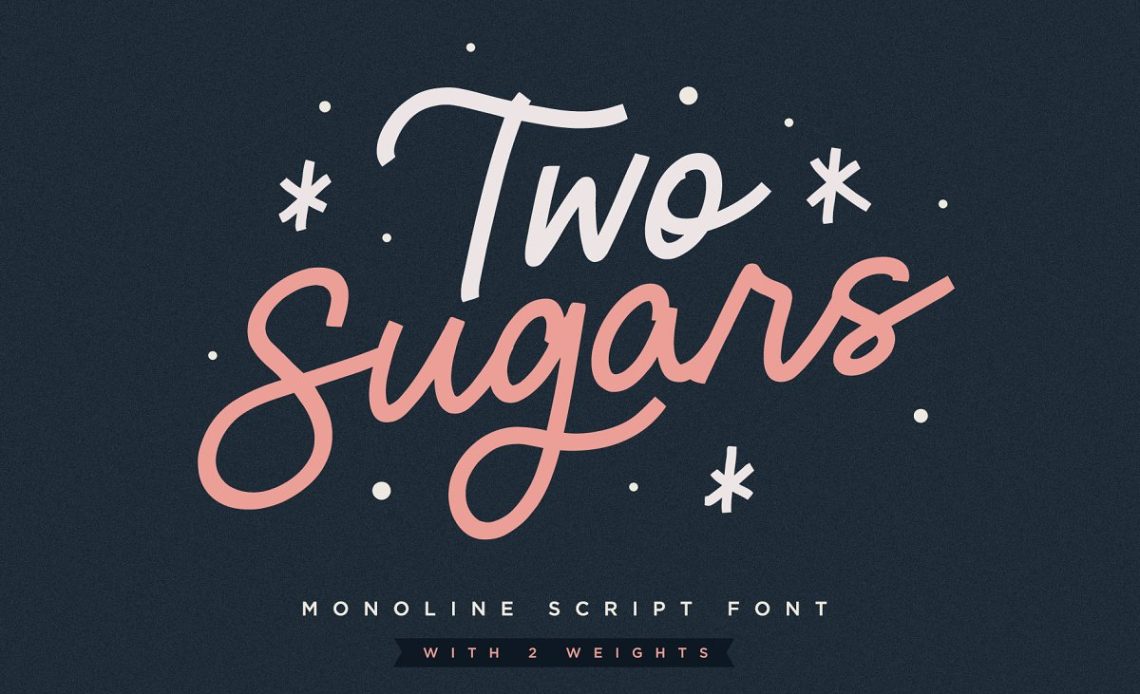
Looking for the perfect script font to elevate your quotes and designs? Look no further than Two Sugars Script Font, created by the talented Sam Parrett. With its playful yet striking clean monoline letterforms, Two Sugars is sure to make a statement on any project, from light-hearted merchandise designs to impactful quote graphics.
This versatile font family includes Two Sugars Regular, featuring clean, connecting upper and lowercase characters, numerals, and a range of punctuation. Plus, with the included Two Sugars Extras font, you'll get a set of 26 hand-drawn stars and underlines to complement your Two Sugars script fonts. Simply install this separate font and type any A-Z character to generate one of the extras.
For a bolder version of the font, check out Two Sugars Bold and Two Sugars Extras Bold. And don't forget about the alternates, which feature elongated tails on lowercase descenders g, j, z, and y, adding extra flair to your text. These alternates are accessible by switching on "Stylistic Alternates" or via a Glyphs panel.
With language support for 24 languages, including English, French, Italian, Spanish, Portuguese, and more, Two Sugars is the perfect choice for any project. So why wait? Download Two Sugars Script Font today and start creating eye-catching designs that stand out from the crowd!